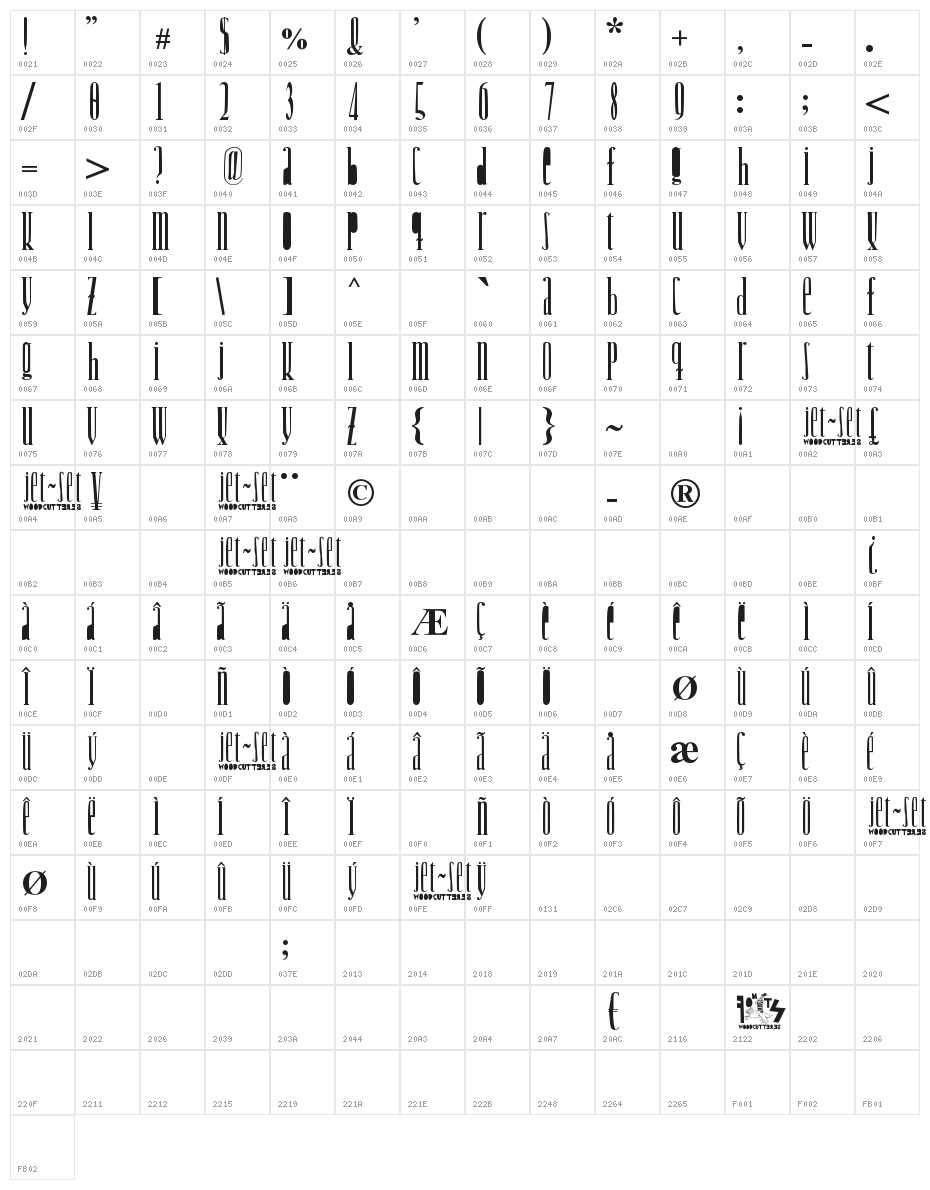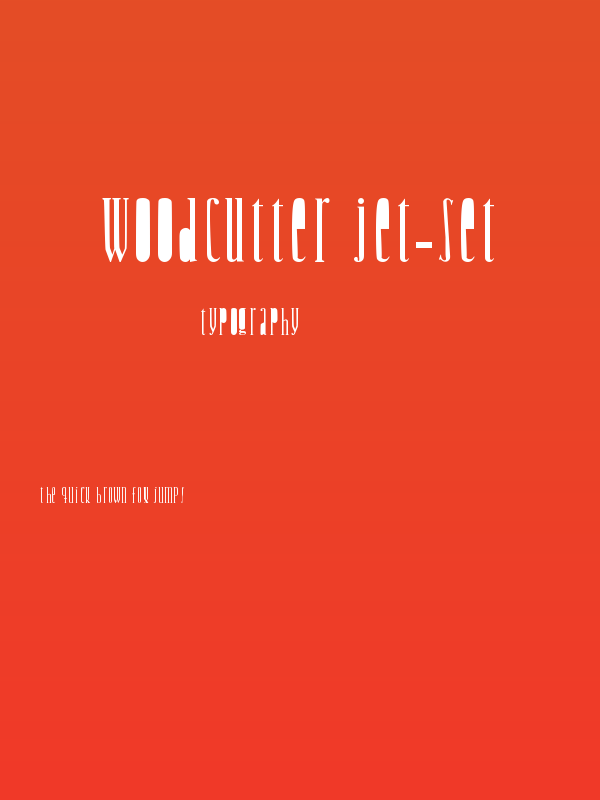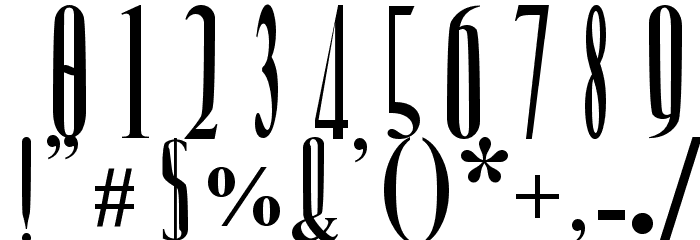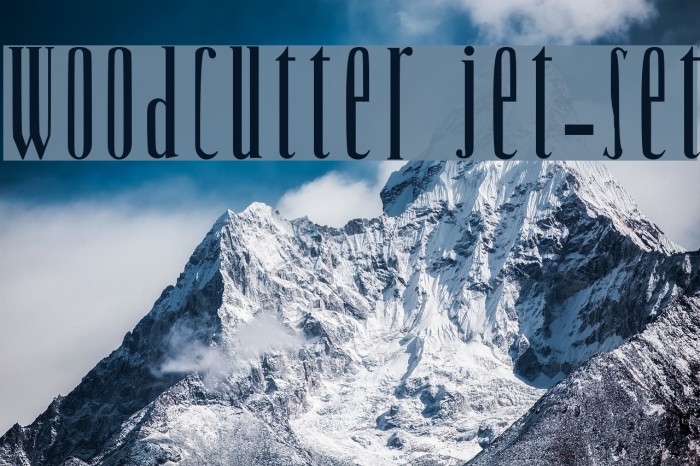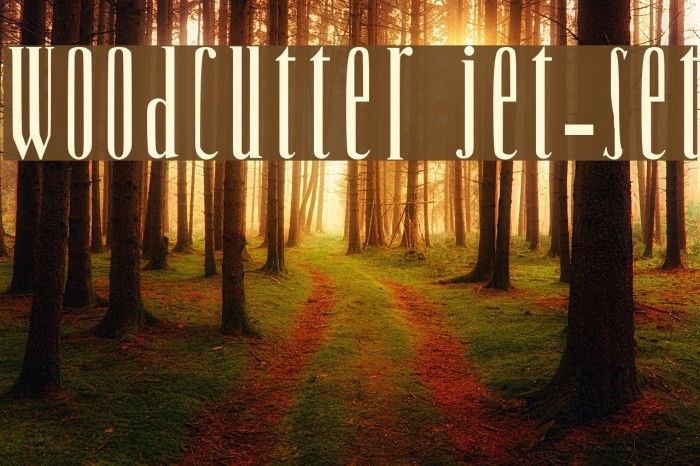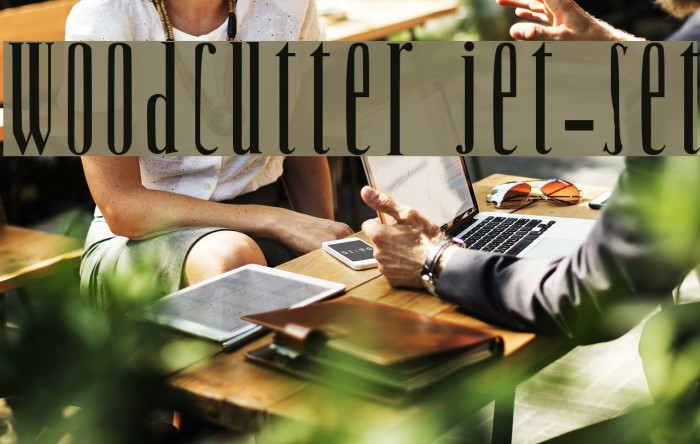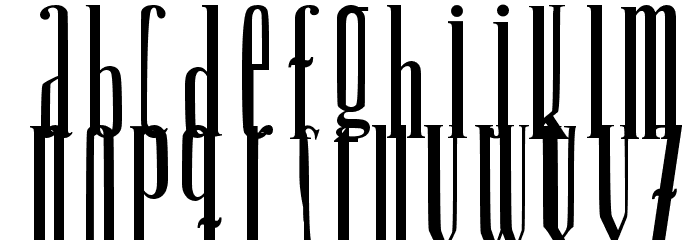
Woodcutter Jet-Set Font
Woodcutter Jet-Set Description
This font features a striking and elongated design with high contrast between thick and thin strokes. The characters are tall and narrow, giving them a distinct and elegant appearance. The uppercase letters maintain a consistent height, while the lowercase letters exhibit unique ascenders and descenders that add to the font's decorative style. The numerals are similarly elongated, complementing the overall aesthetic. Special characters are designed with the same attention to detail, ensuring a cohesive look across all glyphs. This font's dramatic style makes it ideal for projects that require a bold and artistic touch.